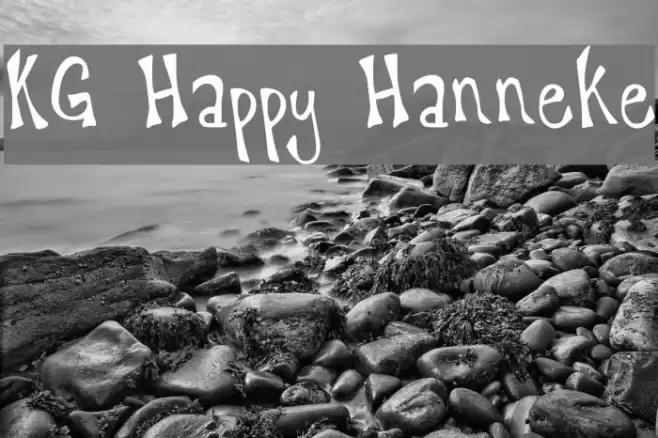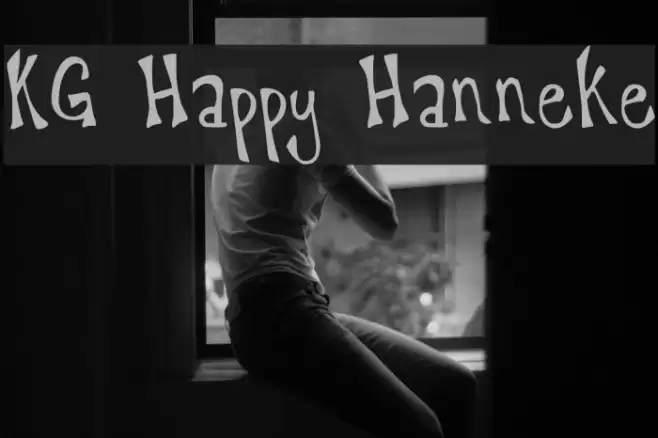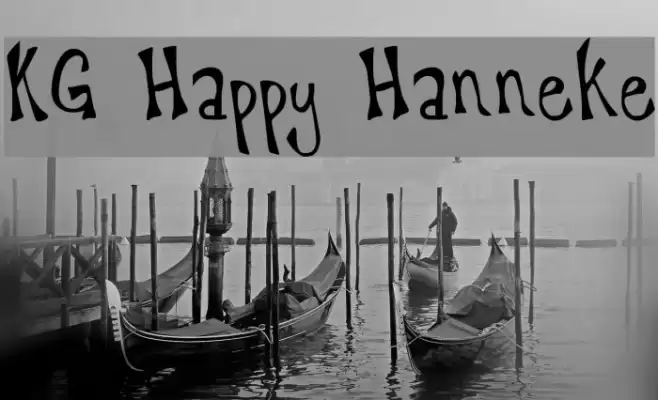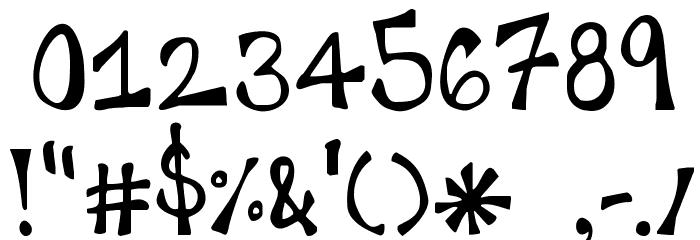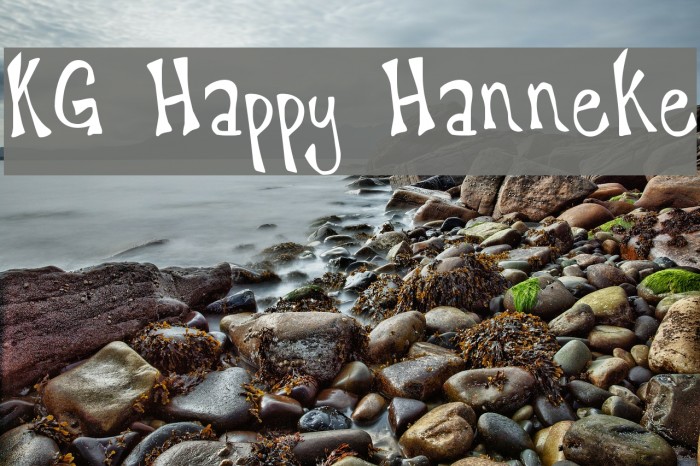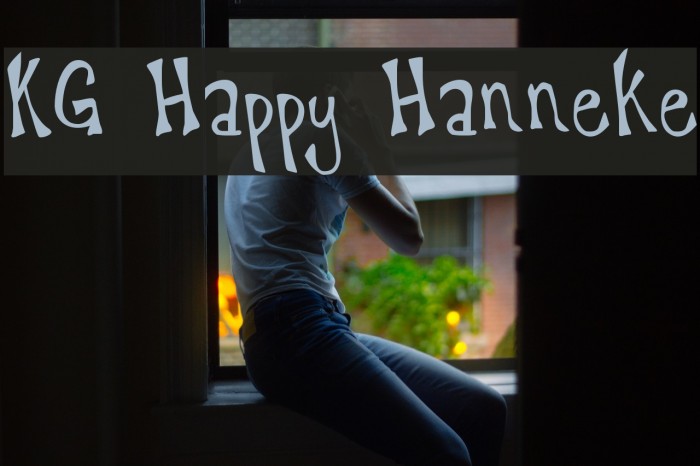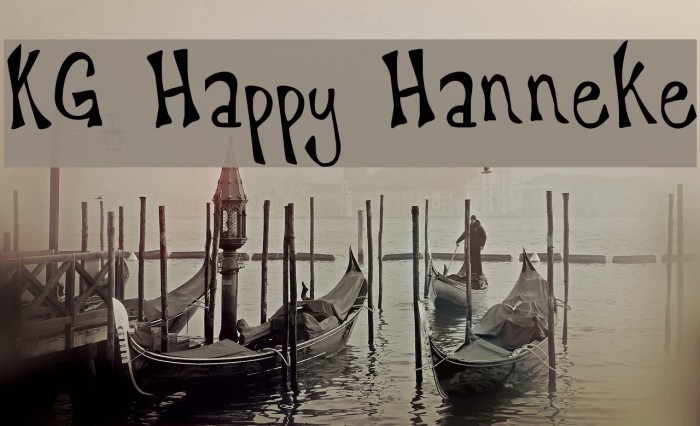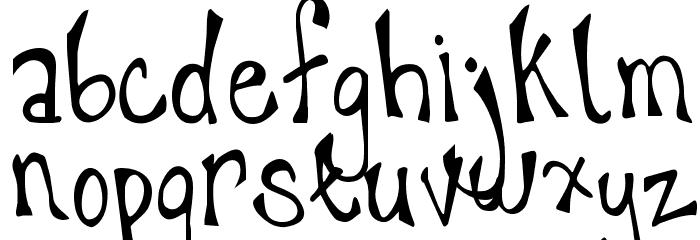
KG Happy Hanneke Font
KG Happy Hanneke Description
This font features a whimsical and playful design, characterized by its irregular and quirky letterforms. Each character has a unique, hand-drawn appearance, with varying stroke thicknesses and angles that contribute to its lively and dynamic feel. The uppercase letters are bold and slightly tilted, while the lowercase letters maintain a consistent yet playful style. Numbers and special characters follow the same whimsical theme, making this font ideal for projects that require a fun and informal touch. The overall style is reminiscent of a child's handwriting, adding a sense of innocence and creativity.
A whimsical, hand-drawn font with playful, irregular letterforms from Uncategorized fonts.
- Proposed Projects: Ideal for children's books, playful branding, greeting cards, and creative posters.
- Overall Style: Playful, Whimsical
- Use Case: Headlines, Logos, Creative projects